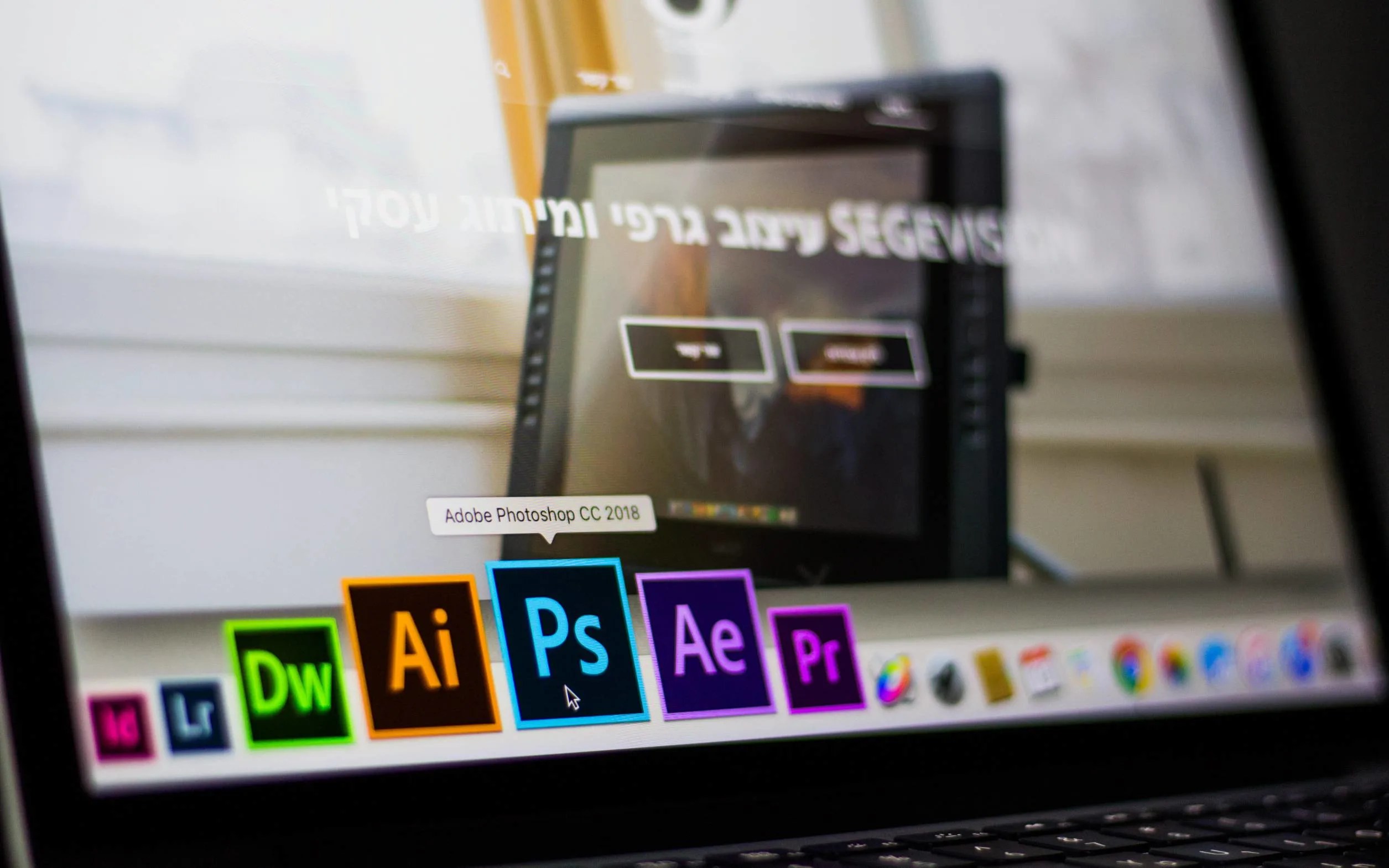
The following tutorial on how to use downloaded fonts in Photoshop will be useful for those of you who want to create aesthetic graphic designs. Because the best graphic design requires not only a play of colors but also the use of interesting fonts.
Many people choose to play it safe in creating graphic designs, so they only dare to use Times New Roman or Arial fonts. Both fonts have a simple design that is easy to read.
In fact, in the creative world, a good design will always use decorative fonts to increase visual value. Various types of decorative fonts can be obtained from various websites and then saved in the Photoshop application.
If an interesting font has been obtained, then how do you use fonts in Photoshop? Well, for those who are curious, let’s follow this simple tutorial on how to use Photoshop:
After understanding how to use fonts downloaded on a laptop or computer, it’s time to pay attention to some cool font recommendations. By using the selected fonts from Twinletter below, the graphic design will become more attractive.
The main design of the High Mount font is simple yet attractive. The main character it wants to display is calming, like a high mountain, as the name it bears.
This High Mount font is widely used on various popular gaming platforms and in PC or smartphone graphic design products.
Another interesting font type from Twinletter is Aginare, which belongs to the Serif font family. As a Serif font family character, Aginare also has a strong impression and is mature enough to be used in branding projects.
It’s just that because the shape of Aginare’s geometric lines is much thinner, it is able to present an exclusive, luxurious impression.
The Broseki font also comes from the Serif font family, so it has a strong appeal to the audience. The added value of Broseki is that its geometric shape looks more contemporary, so it doesn’t look outdated.
The main theme that Aquatic font wants to display is refreshing because its geometric shape is similar to that of High Mount. However, Aquatic has prominent details in the form of curves on each edge of the letters.
The use of aquatic fonts will make a difference in the visual appearance of the design, especially if you are creative enough to add other ideas to support the theme’s appearance and make it stronger, such as water—or sea-themed wallpapers.
The last reference is the Puntodewo font, which is inspired by the cultural creations of the ancestors. Puntodewo’s main character is clear, bold geometric lines, which ensures a high readability level while remaining visually aesthetic.
So easy, right? Each font has features based on its characteristics. The job of a graphic designer is to use them appropriately.
This is an explanation of the steps for using downloaded fonts in Photoshop. Good luck!